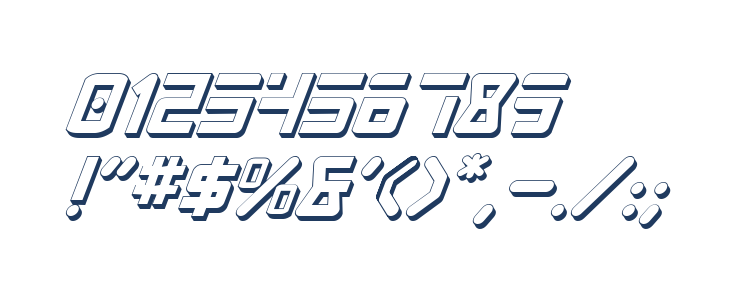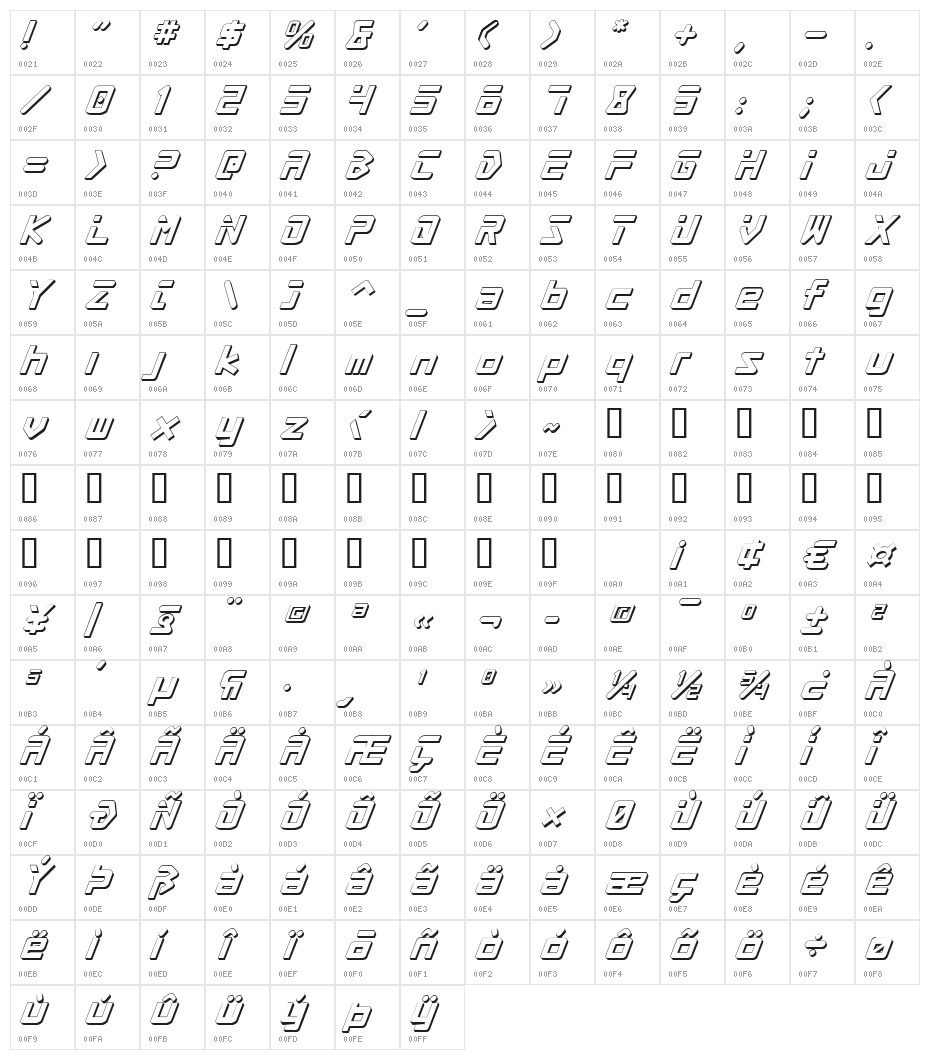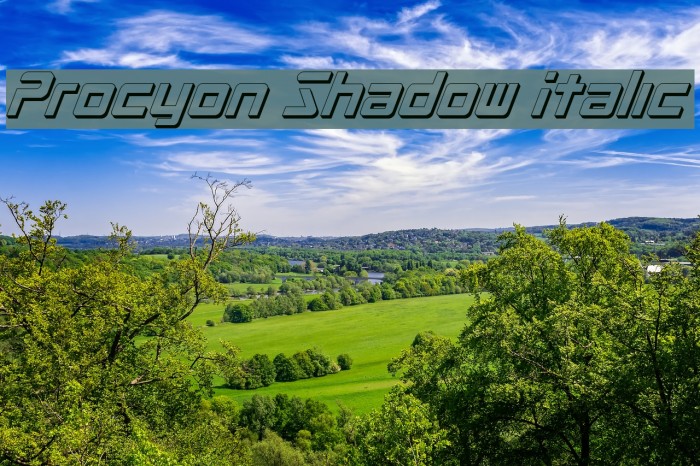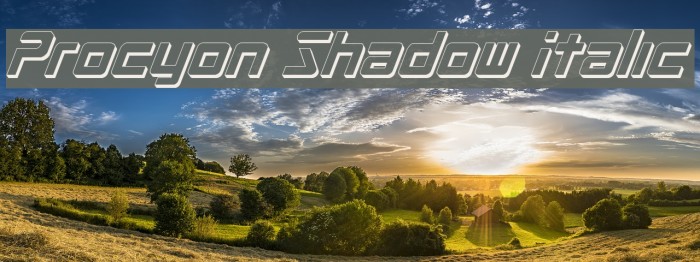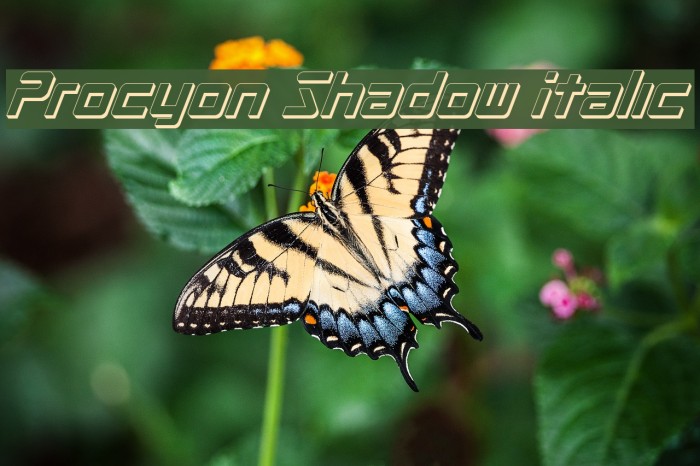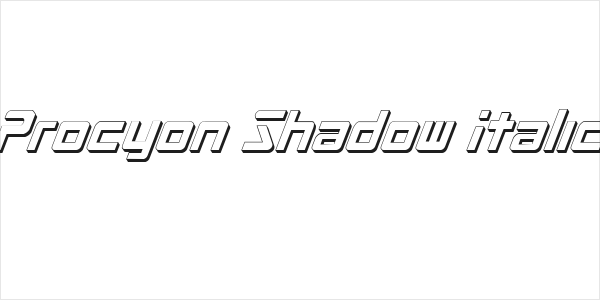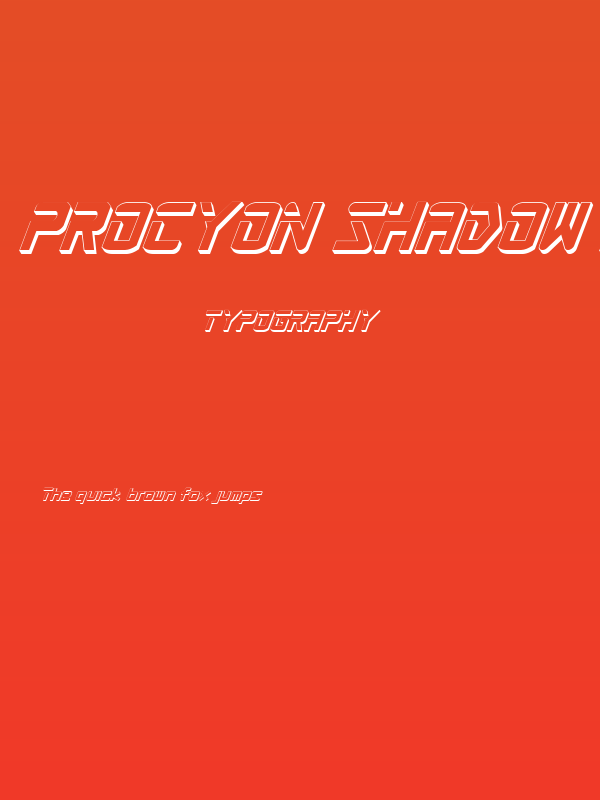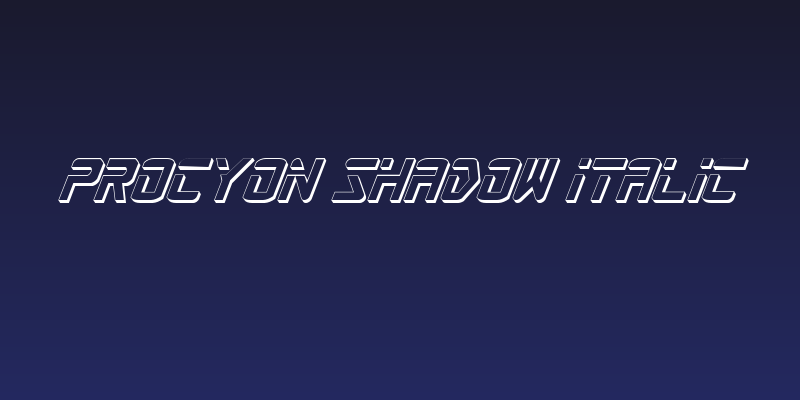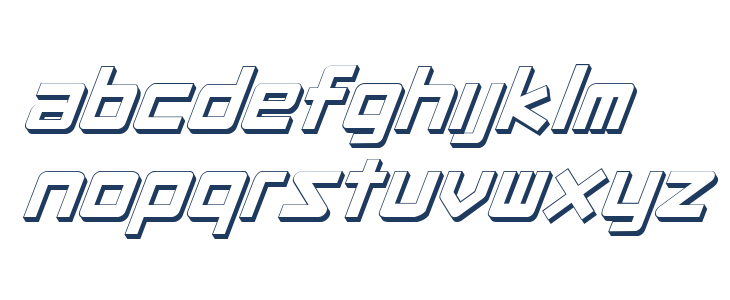
Procyon Shadow Italic Font
Procyon Shadow Italic Description
This font features a bold, italicized style with a distinct shadow effect that gives it a three-dimensional appearance. The characters are angular and geometric, with sharp edges and a futuristic aesthetic. The uppercase and lowercase letters maintain a consistent design, while the numbers and special characters complement the overall look. The shadow effect adds depth, making the text stand out, ideal for eye-catching designs. The font's unique style is suitable for projects that require a modern and dynamic feel.
| Proposed Projects | Ideal for sci-fi themed posters, video game titles, branding for tech companies, and modern advertising campaigns. |